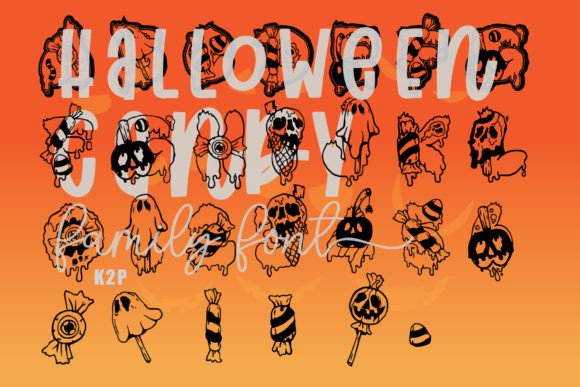
Embark on a whimsical journey into the realm of Halloween with Candy Font, a spellbinding creation by KtwoP. This decorative font, adorned with thick, haunting letters, is a chillingly delightful treat for any Halloween-themed project. Unleash your imagination and let your creativity run wild as you conjure up captivating designs, invitations, posters, and more.
As dark and enchanting as a witches' brew, Halloween Candy Font transports you to a world of mystery and magic. Its captivating glyphs and swashes, accessible with ease through PUA encoding, allow you to weave enchanting tales and cast spells of visual delight. Each letter is an eerie work of art, crafted to evoke the spirit of Halloween and cast a spellbinding charm on your audience.
This is not just a font; it's a portal to a world of eerie elegance and captivating charm. With Halloween Candy Font, you'll weave a web of words that dance and cackle, creating an atmosphere of haunting beauty. It's the perfect font for conjuring up spine-tingling stories, crafting invitations that promise a night of thrilling adventure, or designing posters that beckon you into a realm of spooky wonders.
Whether you're a seasoned graphic designer or a novice seeking to add a touch of Halloween magic to your creations, Halloween Candy Font is your spellbinding companion. Its versatility is as endless as a haunted forest, inviting you to explore new realms of creativity. So, embrace the spirit of Halloween, let your imagination soar, and succumb to the enchanting allure of Halloween Candy Font.